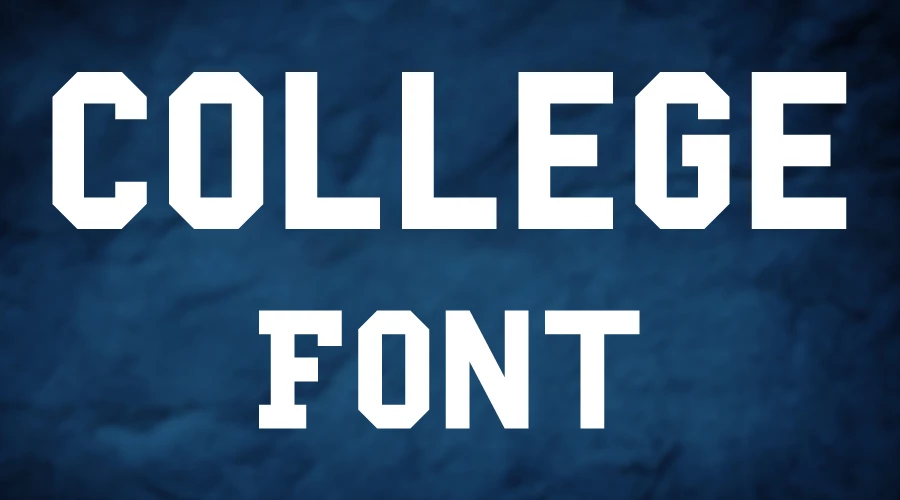
Looking for the most appropriate college font to help you create a sports or university-themed design project? However, choosing a college font can be a tricky task. A few different types of college fonts are commonly used in college and university settings.
Whether you need a bold and powerful font for your school’s team name or a more subtle and sophisticated typeface for university branding, we’ve got you covered. Our collection includes a variety of styles, from hand-drawn to serif, so that you can find the right match for your project.
Matthew Welch designed this college font before 2005. It’s a fancy old-school free font for both personal and commercial use. You can use it in college jackets and other college-related branding efforts. This is a trendy font. It has four font families regular, bold, semi-bold, and condensed, and all font styles have 80 glyphs. Contact the designer: matt@squaregear.net
If you need a college clothing font with a thicker border, try the Collegiate Heavy Outline Font designed by Character. This font is based on collegiate solid. The font has 82 characters. It was published in 2006. You can contact the designer at Character55@gmail.com.
The Freshman font is a fancy, bold font designed by William Boyd and published in 1993. It’s an all-capitalized font that is free for personal and commercial use. It supports the TrueType format with 80 glyphs and 83 characters.
The popular college font, College Block 2.0, is here to stay! The font was designed by Dennis Ludlow and published by Sharkshock in 2017. This blocky display typeface comes with a 3D version and features sharp lines that will make your branding efforts pop off the page-perfect for varsity jackets or university logos. You make the call:). Deigner’s contact is dennis@sharkshock.net.
The College Block Font is the original font of the previous College Block 2.0 Font font, designed by the same designer and published in 2016. This font is perfect for any college or university project! It has a traditional block style perfect for making headlines and a more modern look that you can use for body text. In addition, this font comes in just uppercase with bold weights, so you can use it for a particular project.
It has six font families with regular, bold, and italic versions. All fonts have uppercase letters, with 90 glyphs and 104 characters. ShyFoundry SF Collegiate Font was designed and published by ShyFoundry. You can use it for anything and everything related to college fonts.
Jackport College NCV is an excellent choice for anyone looking for a college or university font. It has a traditional block style perfect for making headlines and a more modern look that you can use for body text. This font comes in just uppercase with bold weights, so you can use it for any project. It has a font family of three styles, with a Greek version included. If you want to use the font for commercial use, then don’t hesitate to get in touch with us here: http://thefontry.com/jackport
It is a fancy font that Fontsandfashion designed in 2018. This font is distinguished by its outline design. Suitable for publications, school posters, and other stunning design work.
Old Sport Athletic is a fun and playful font by the Fontry. It’s great for headlines, logos, and other sports and athletic-themed designs.